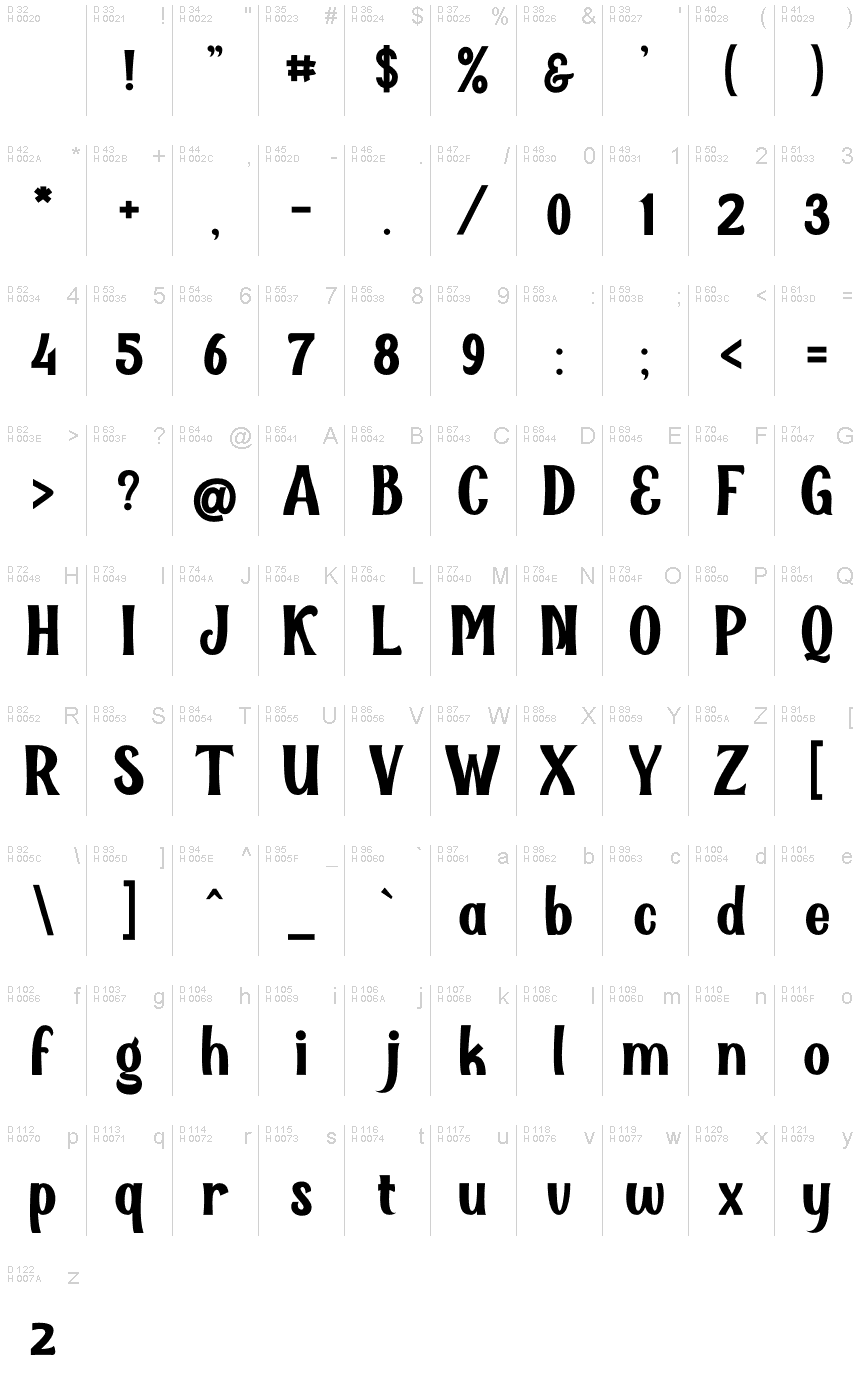
Qallégro Regular Demo
Qallégro, designed by Rochart, is an exquisitely bold display font that adds a touch of playfulness to any project. With its comic style, this
typeface will infuse your designs with a delightful charm. Perfect for children's book covers, greeting cards, or even animated advertisements, Qallégro effortlessly captures attention and brings joy to your creations. Its bold weight ensures legibility while maintaining a sense of whimsy. Let Qallégro enliven your projects and invite smiles from all who encounter its lively characters and vibrant personality.